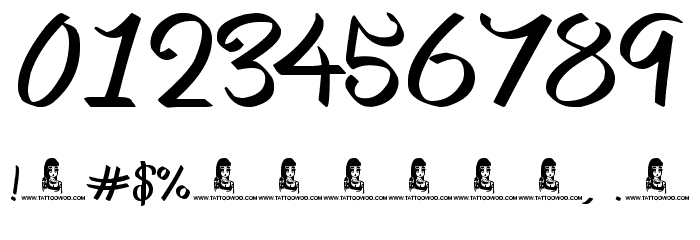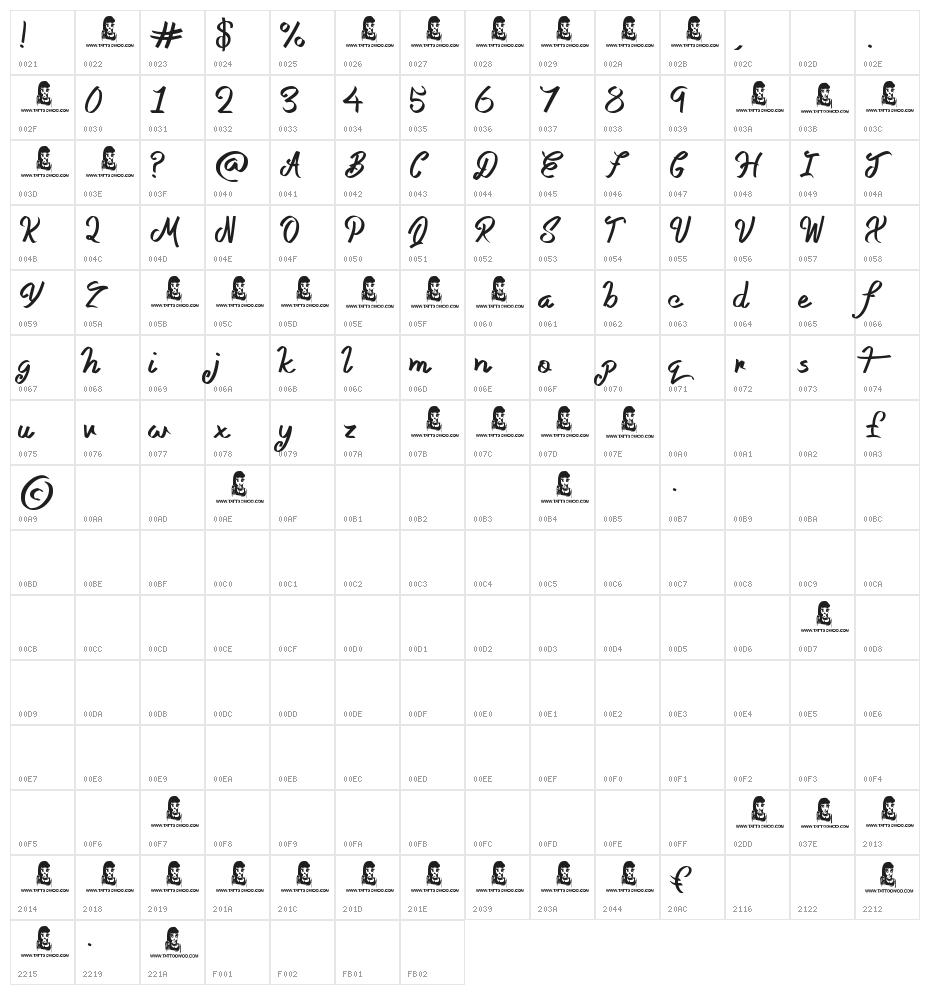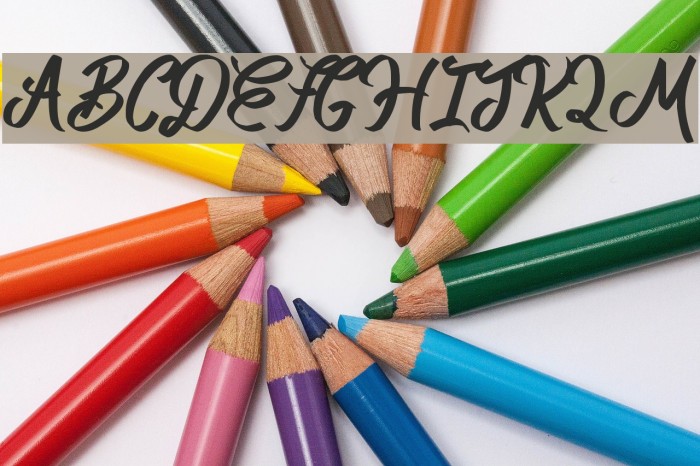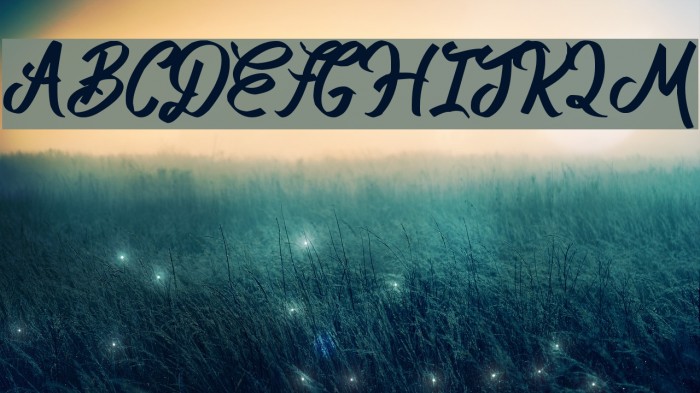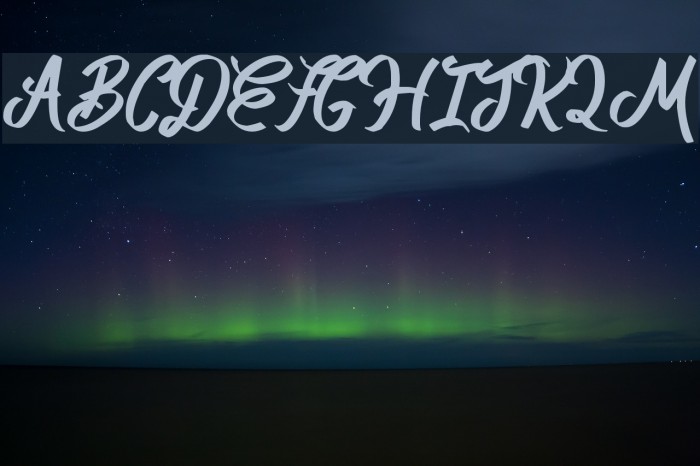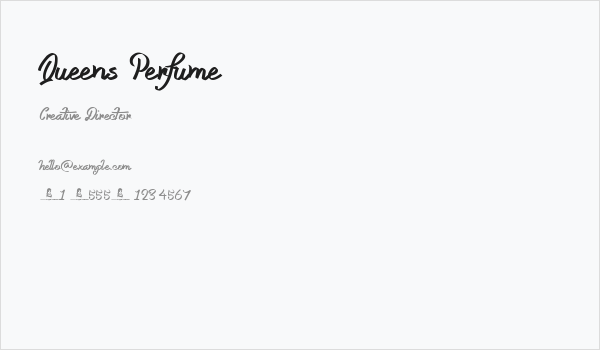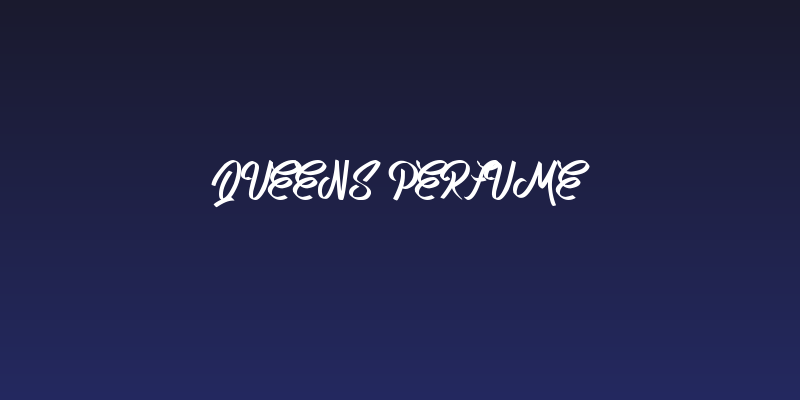
Queens Perfume Font
Queens Perfume Description
This font exudes a bold and dynamic script style, characterized by its fluid and cursive letterforms. The uppercase letters are particularly striking, with sweeping curves and a sense of motion that suggests elegance and flair. The lowercase letters maintain this fluidity, offering a harmonious blend of thick and thin strokes that enhance readability while retaining a decorative appeal. The numerals and special characters are consistent with the overall style, providing a cohesive look. This font's design is both artistic and functional, making it suitable for a variety of creative applications.